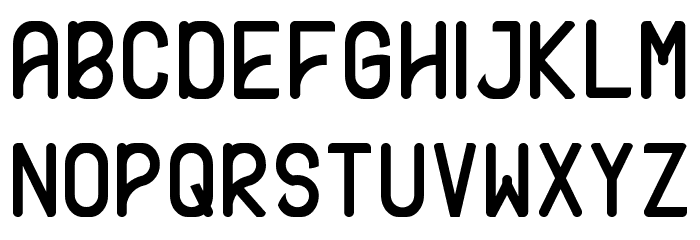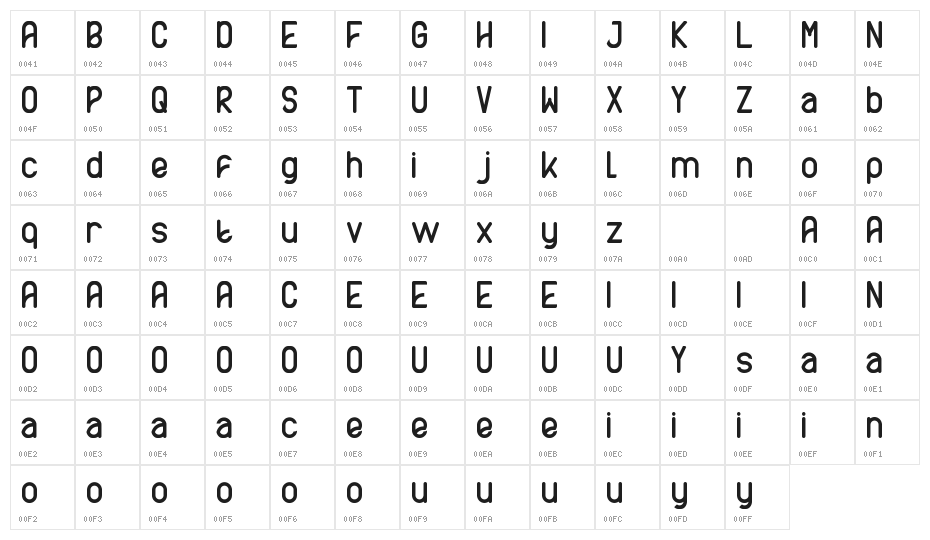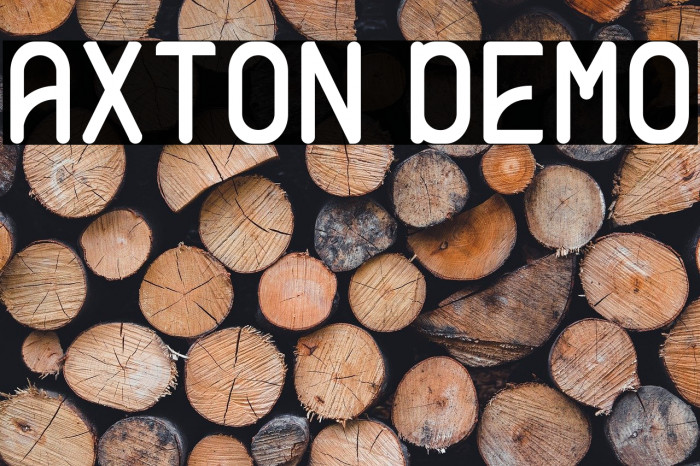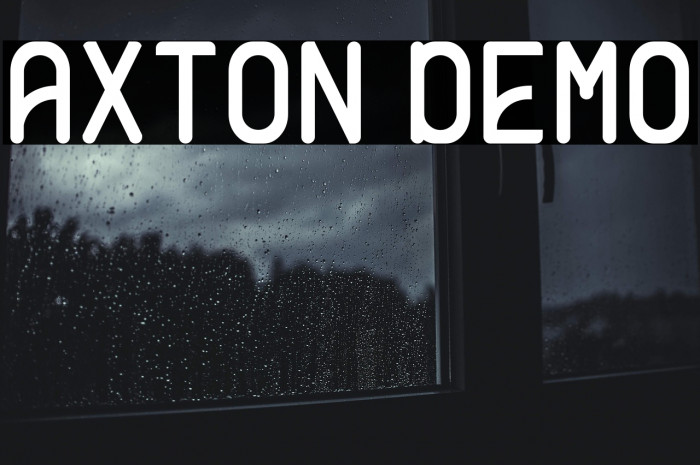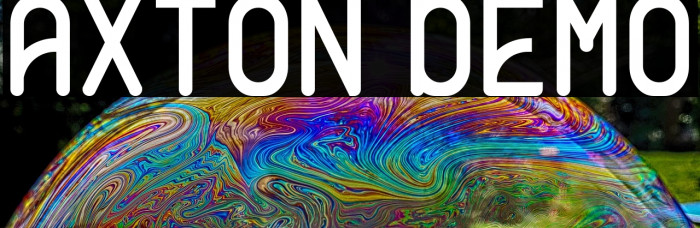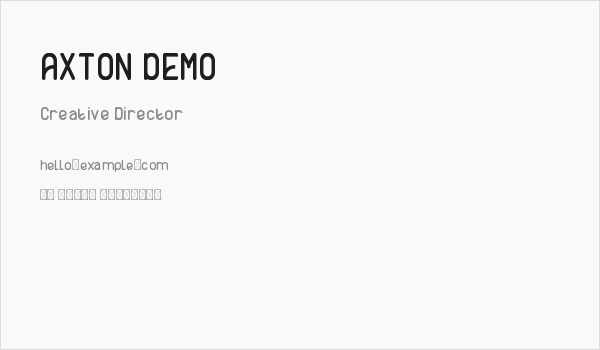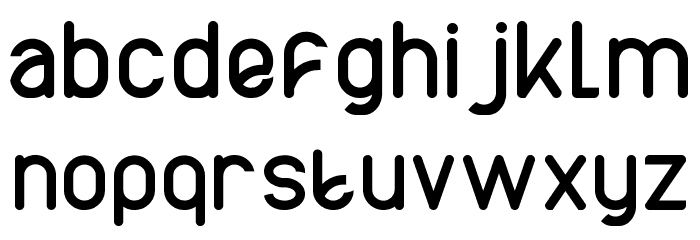
AXTON DEMO Font
AXTON DEMO Description
This font features a playful and rounded design, characterized by its smooth curves and consistent stroke width. The letters are bold and have a friendly appearance, making them suitable for a variety of creative projects. The uppercase and lowercase letters maintain a uniform style, with a slight distinction in size and shape that adds to the font's charm. The numbers and special characters are designed to match the overall aesthetic, ensuring a cohesive look across all text elements. The font's simplicity and readability make it versatile for both digital and print media.
| Proposed Projects | Ideal for children's books, playful branding, posters, and digital media. |